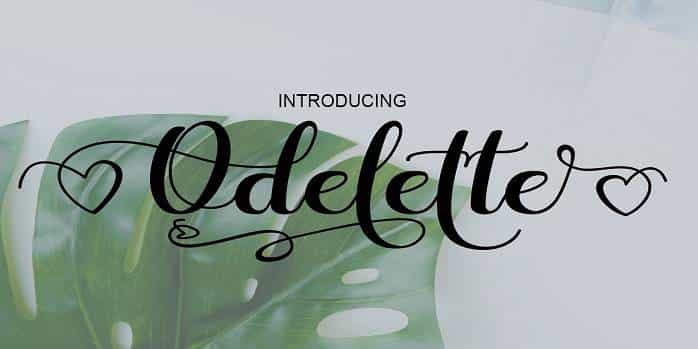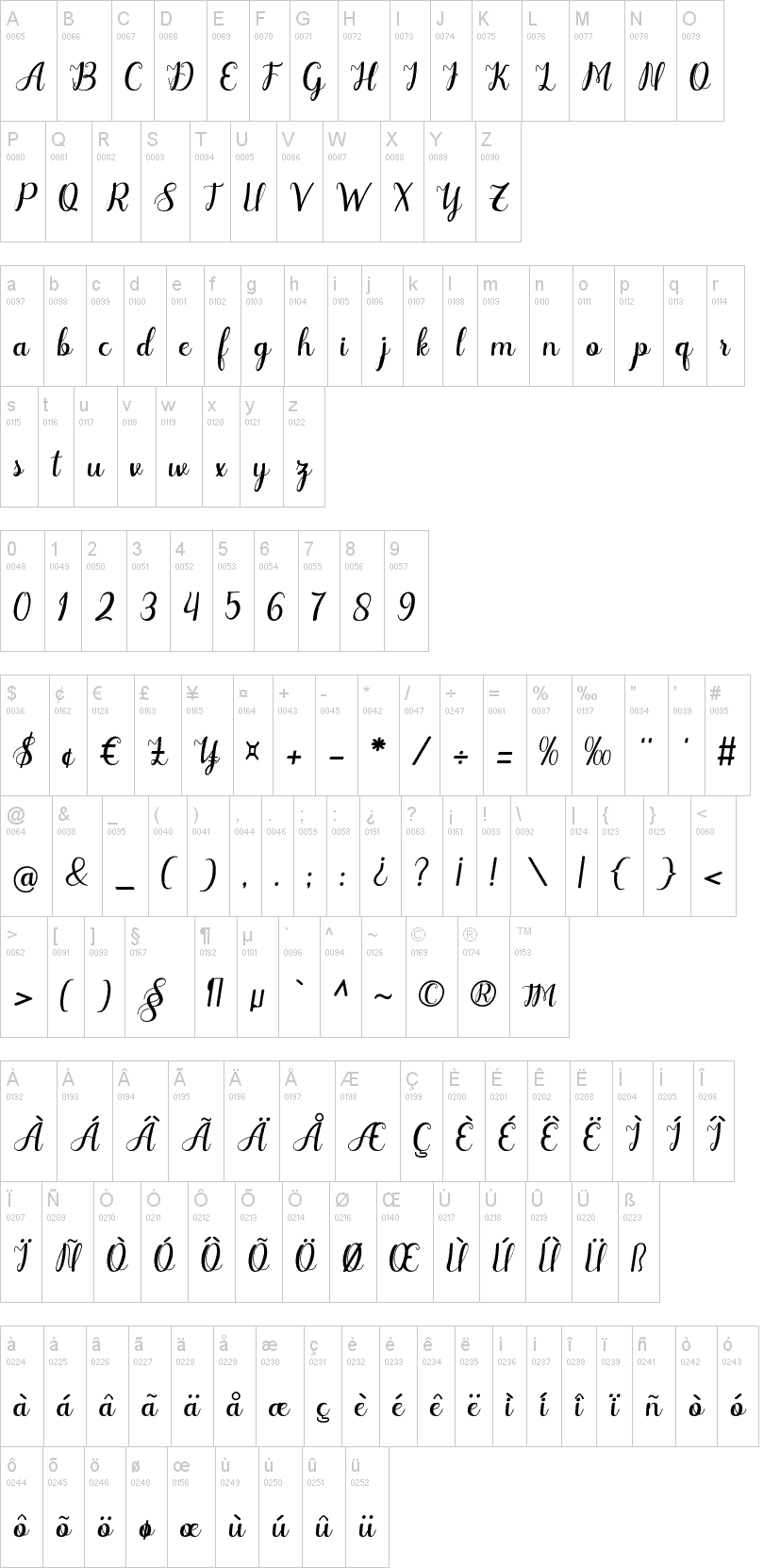
Discover Odelette Font, part of the Calligraphy collection—a versatile and unique font perfect for adding a personal touch to your projects. Download it for free and enjoy crafting designs with style, from invitations to social media posts. This font is available exclusively for personal use, giving you the freedom to create without limits. Unlock your creativity with Odelette Font today!
INTRODUCING New Font Odelette. Odelette scripts are modern calligraphic designs, such as Regular. This font is quite informal and lovely with a swirl. Beneficial for multiple uses. such as logos, product packaging, wedding invitations, branding, titles, signs, labels, signatures, book covers, posters, quotes, and many other things.